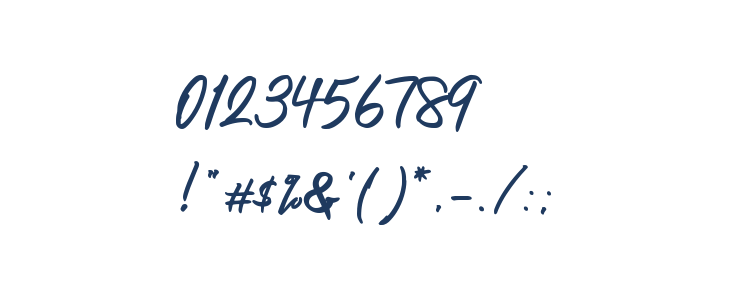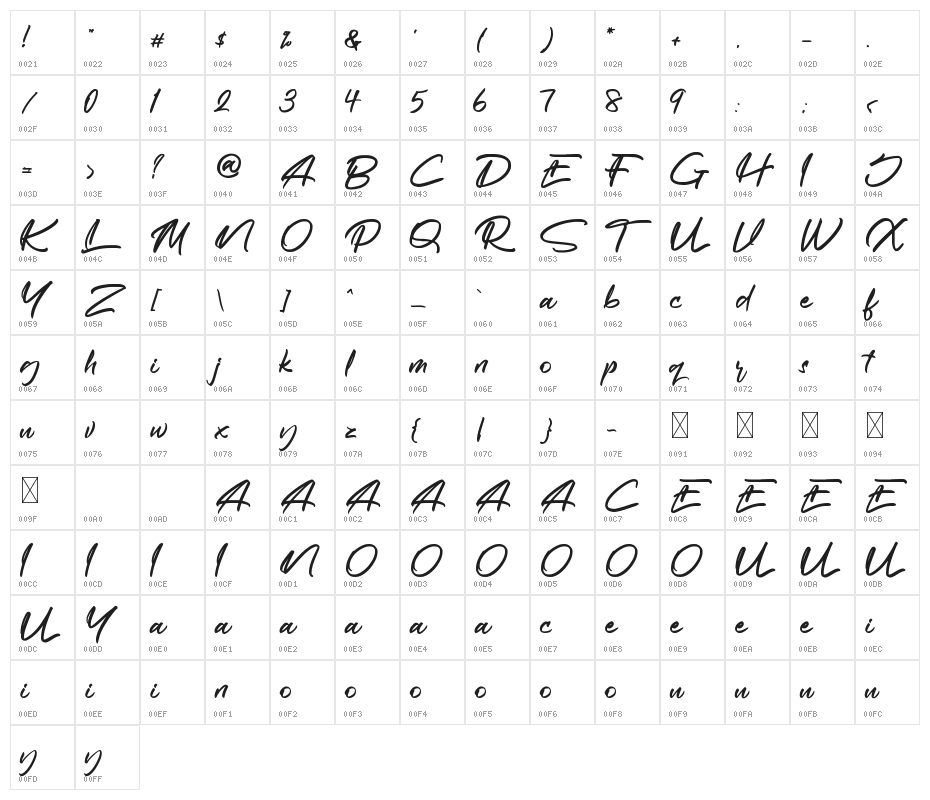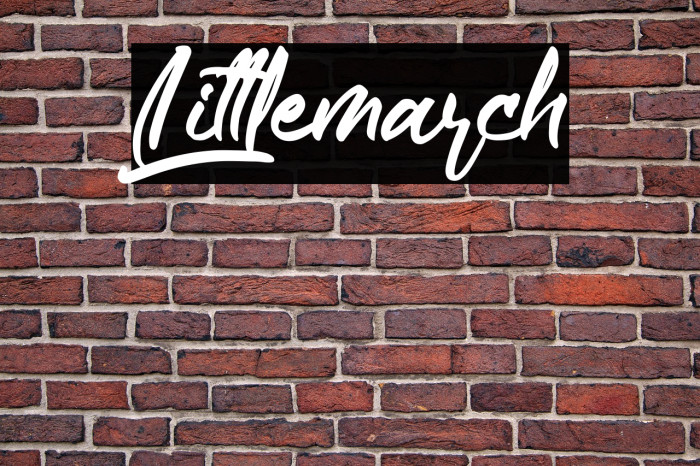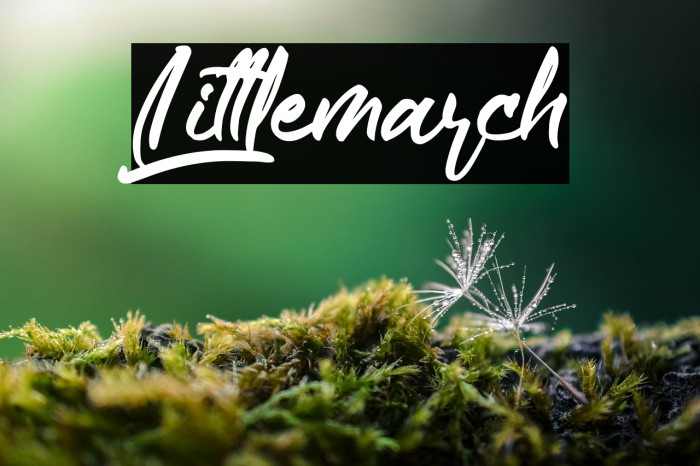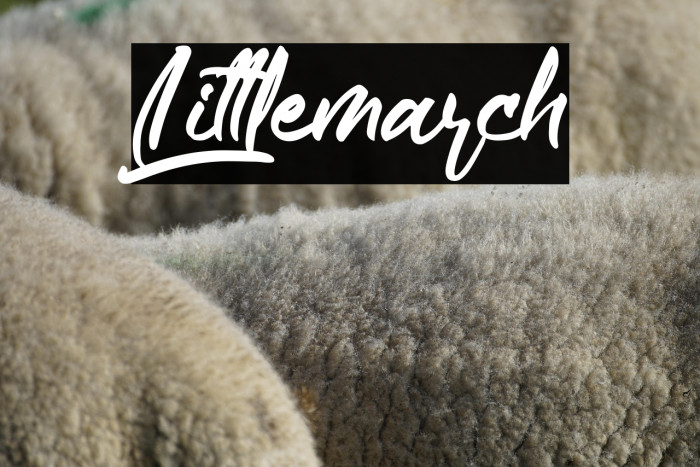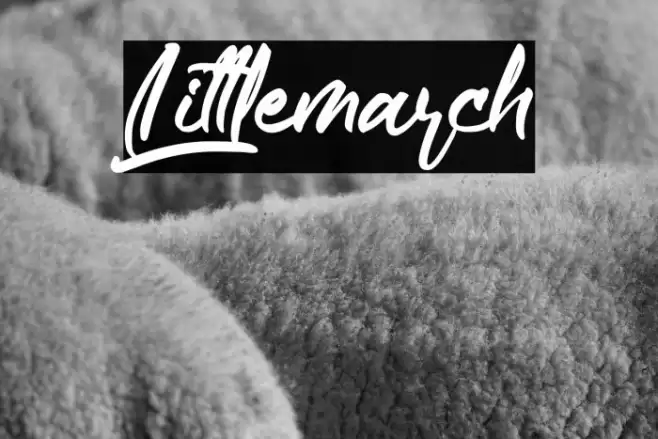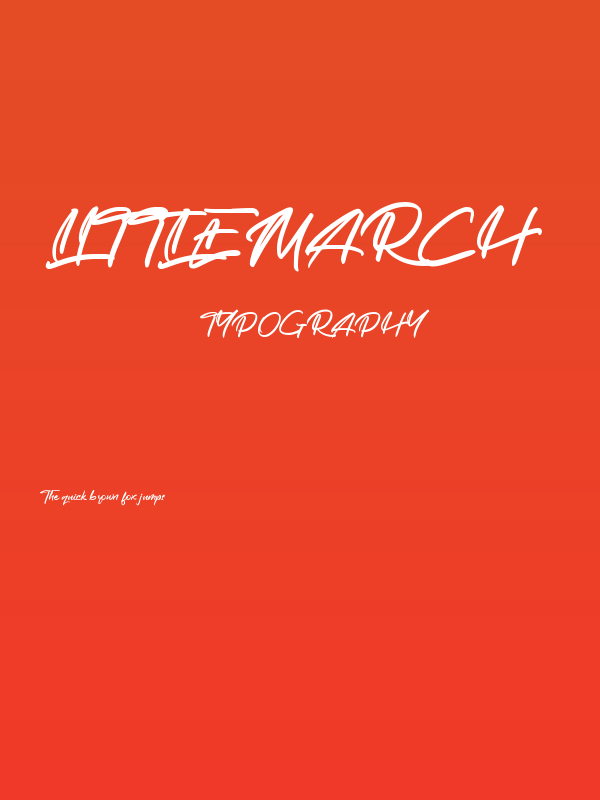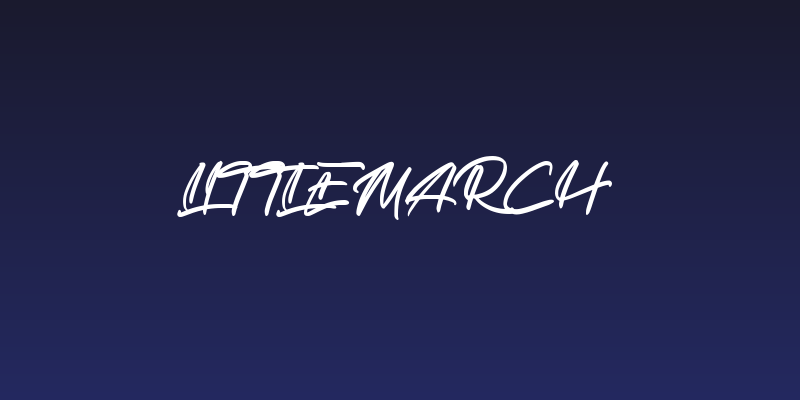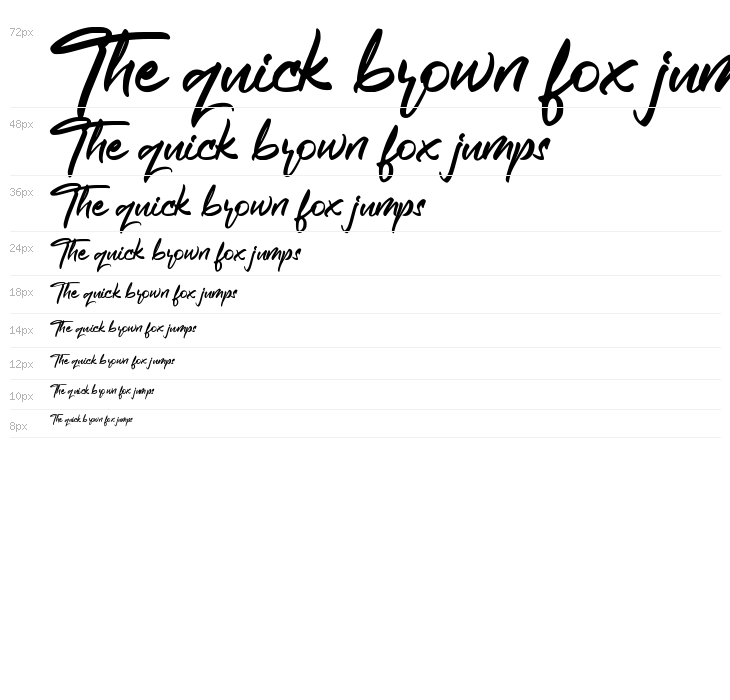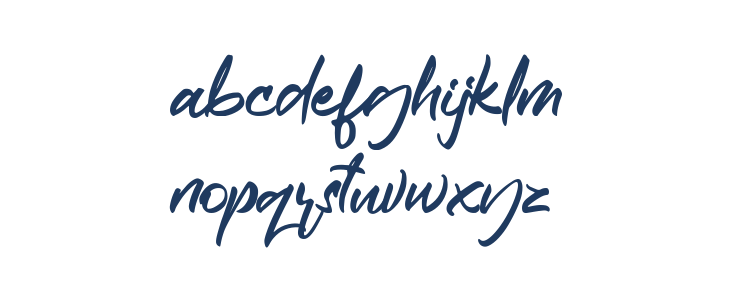
Littlemarch Font
Littlemarch Description
This font exhibits a dynamic and expressive handwritten style, characterized by its fluid and cursive letterforms. The strokes are bold and confident, with a natural flow that mimics the motion of a pen on paper. The uppercase letters are slightly more structured, while the lowercase letters display a more casual and freeform appearance. The numbers and special characters maintain the same energetic style, ensuring consistency across all glyphs. This font's lively and personal touch makes it ideal for projects that require a humanistic and approachable feel.
| Proposed Projects | Ideal for greeting cards, invitations, personal branding, and creative projects that benefit from a personal touch. |